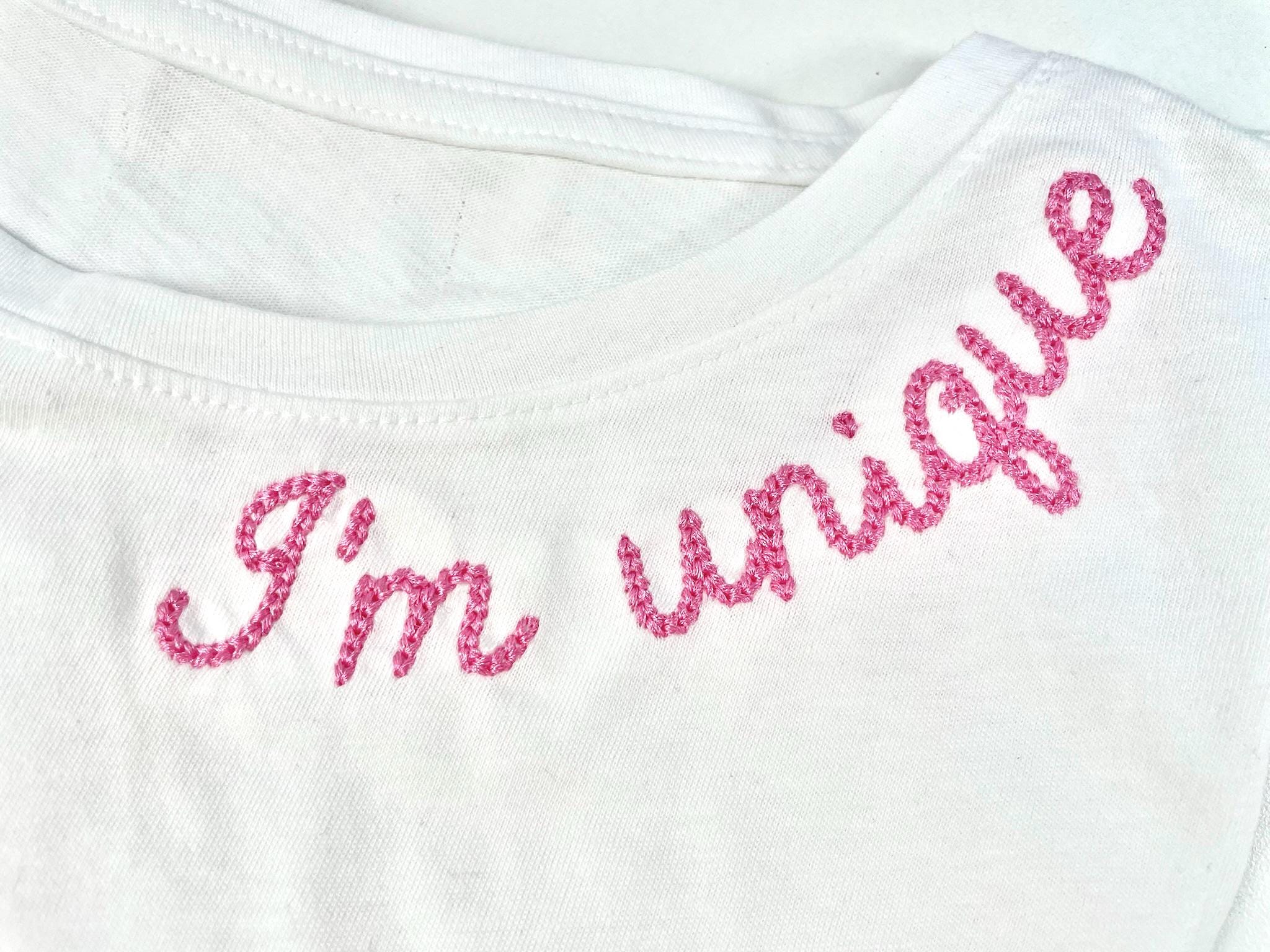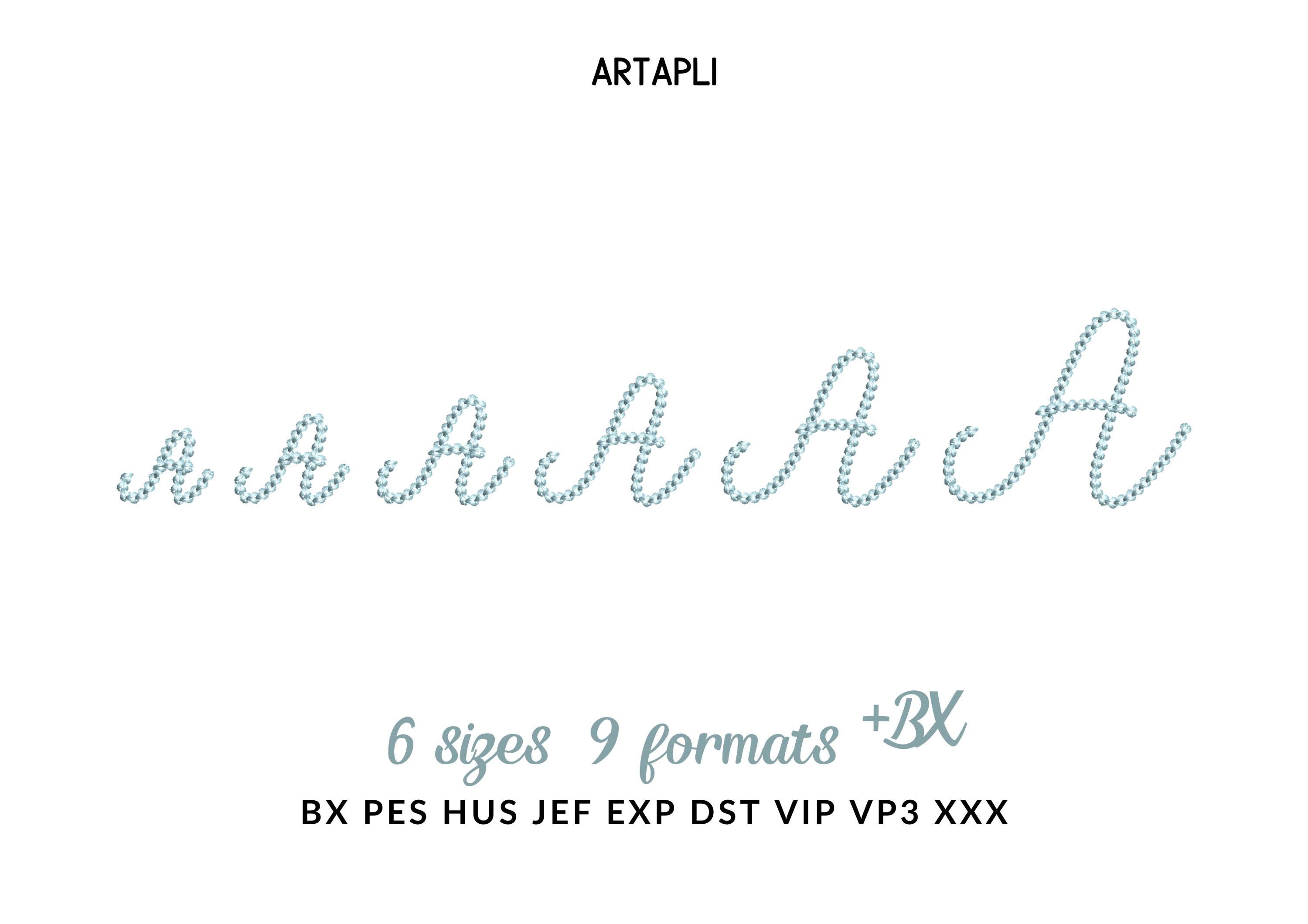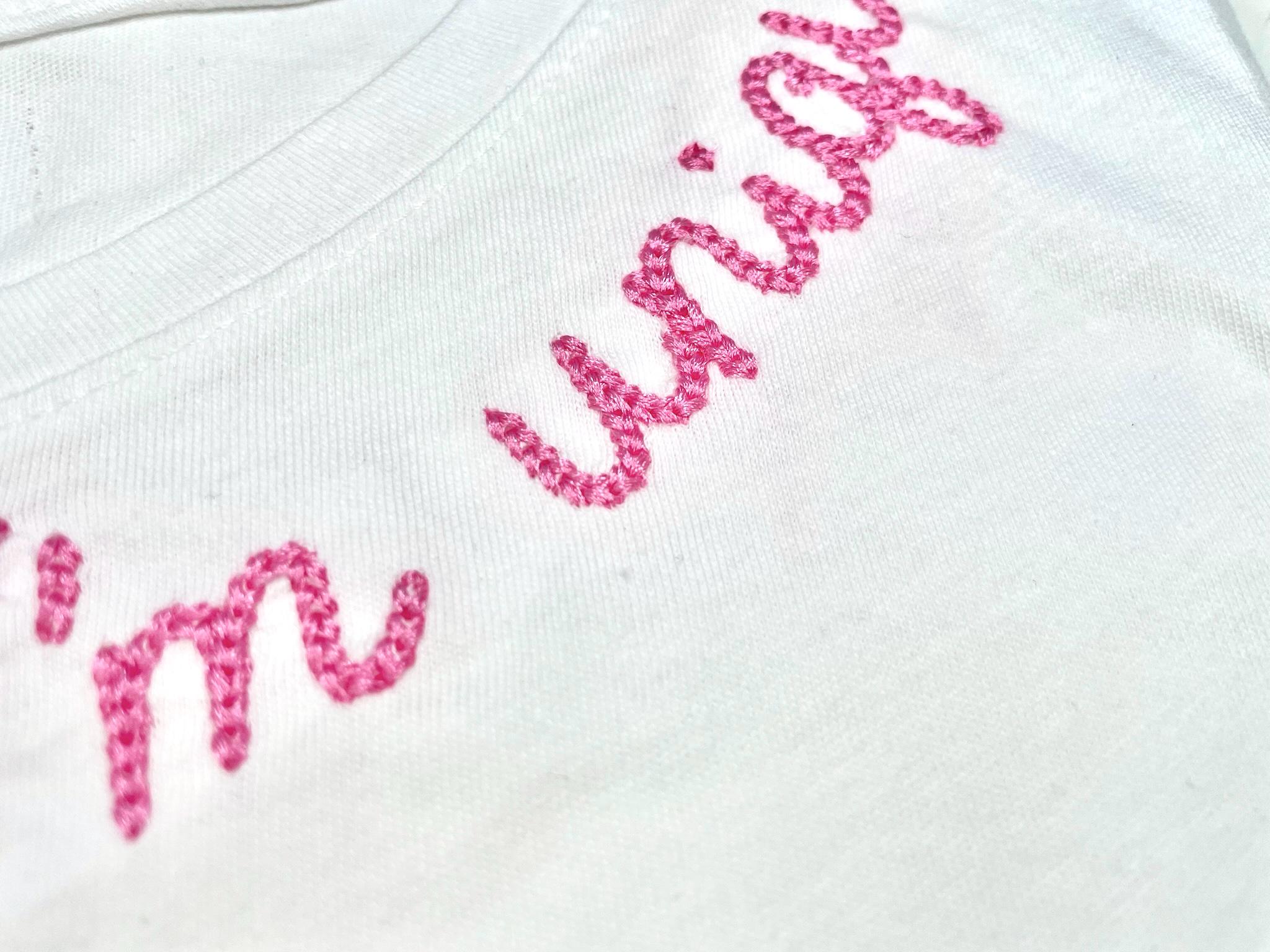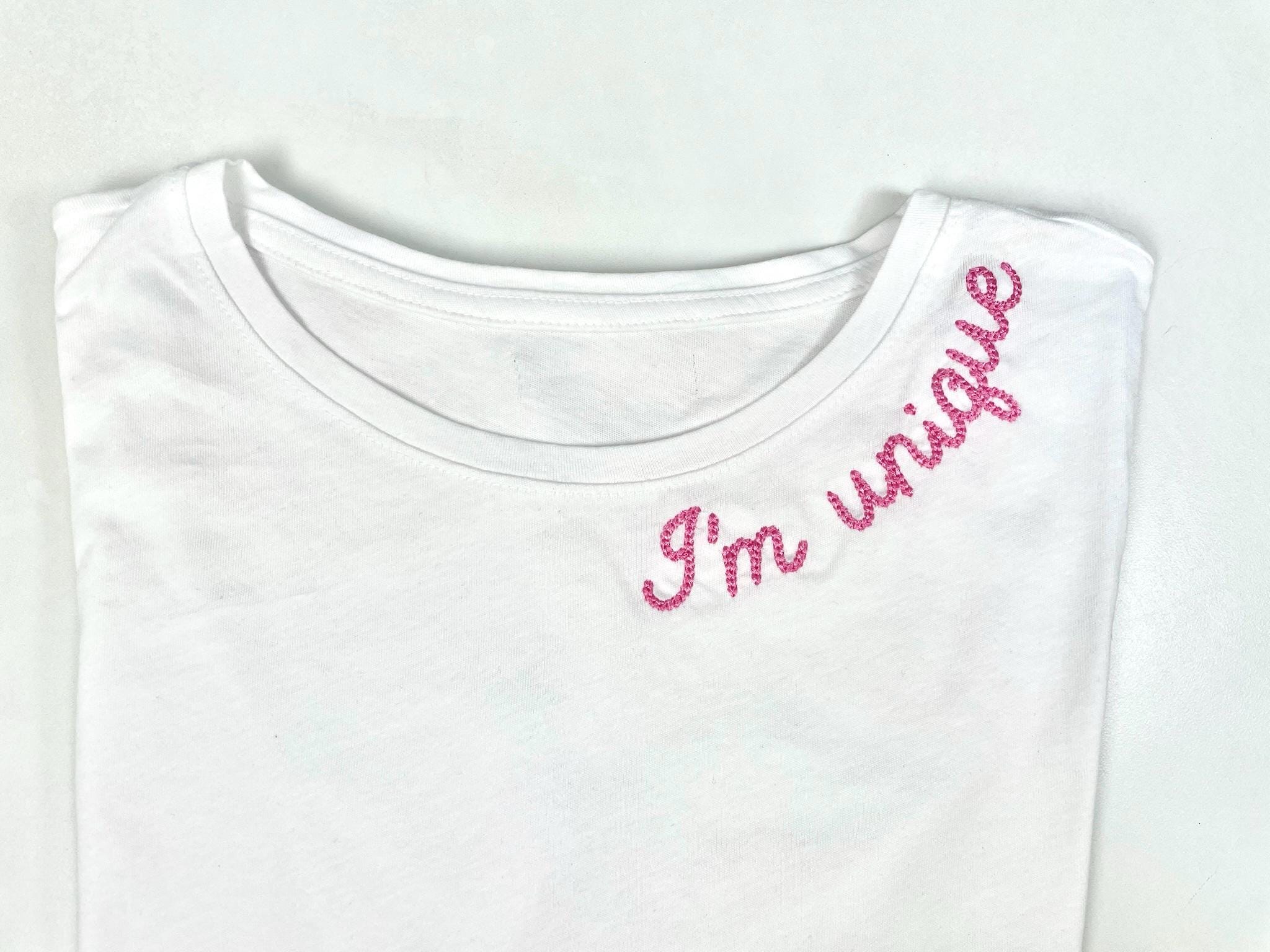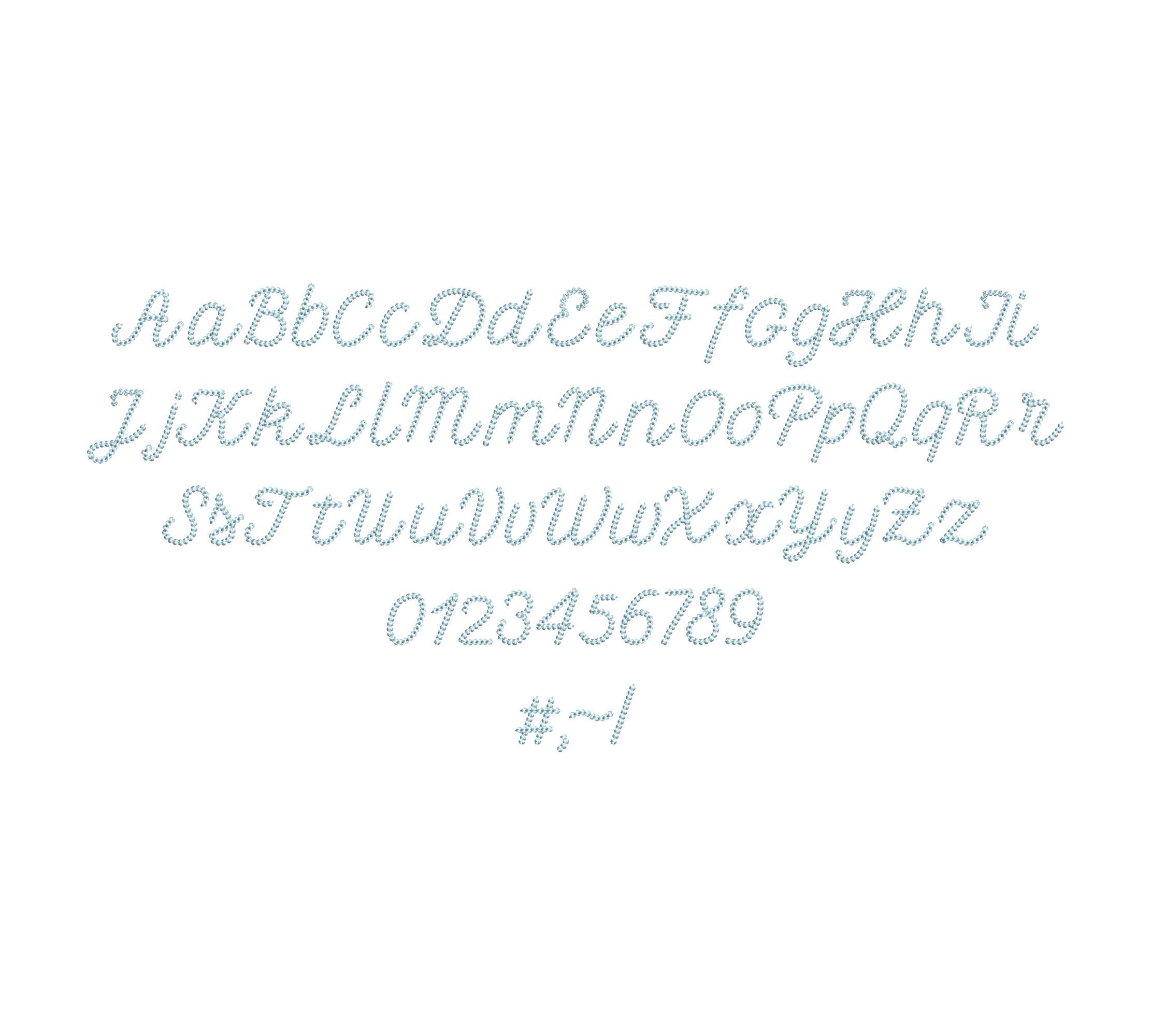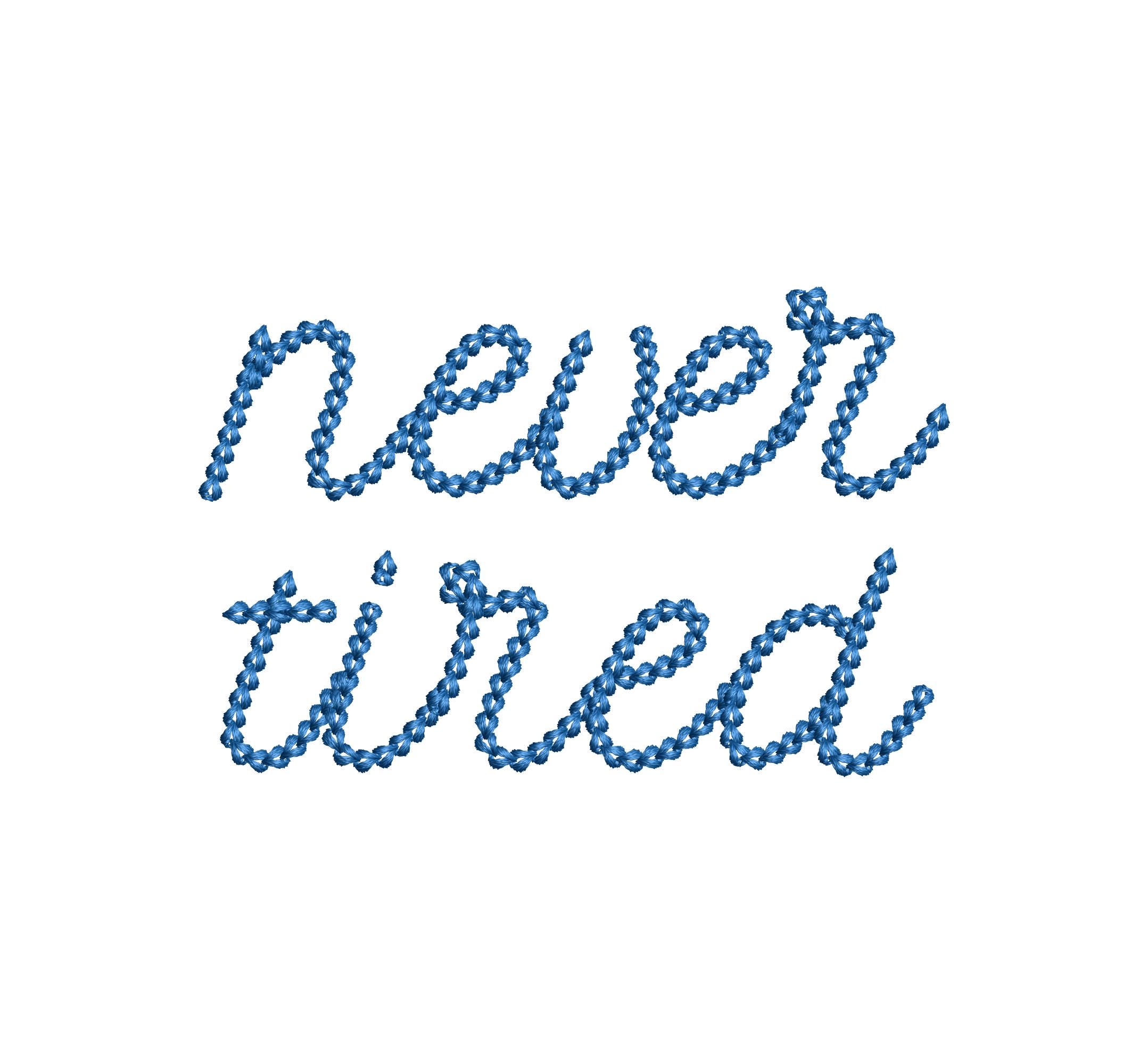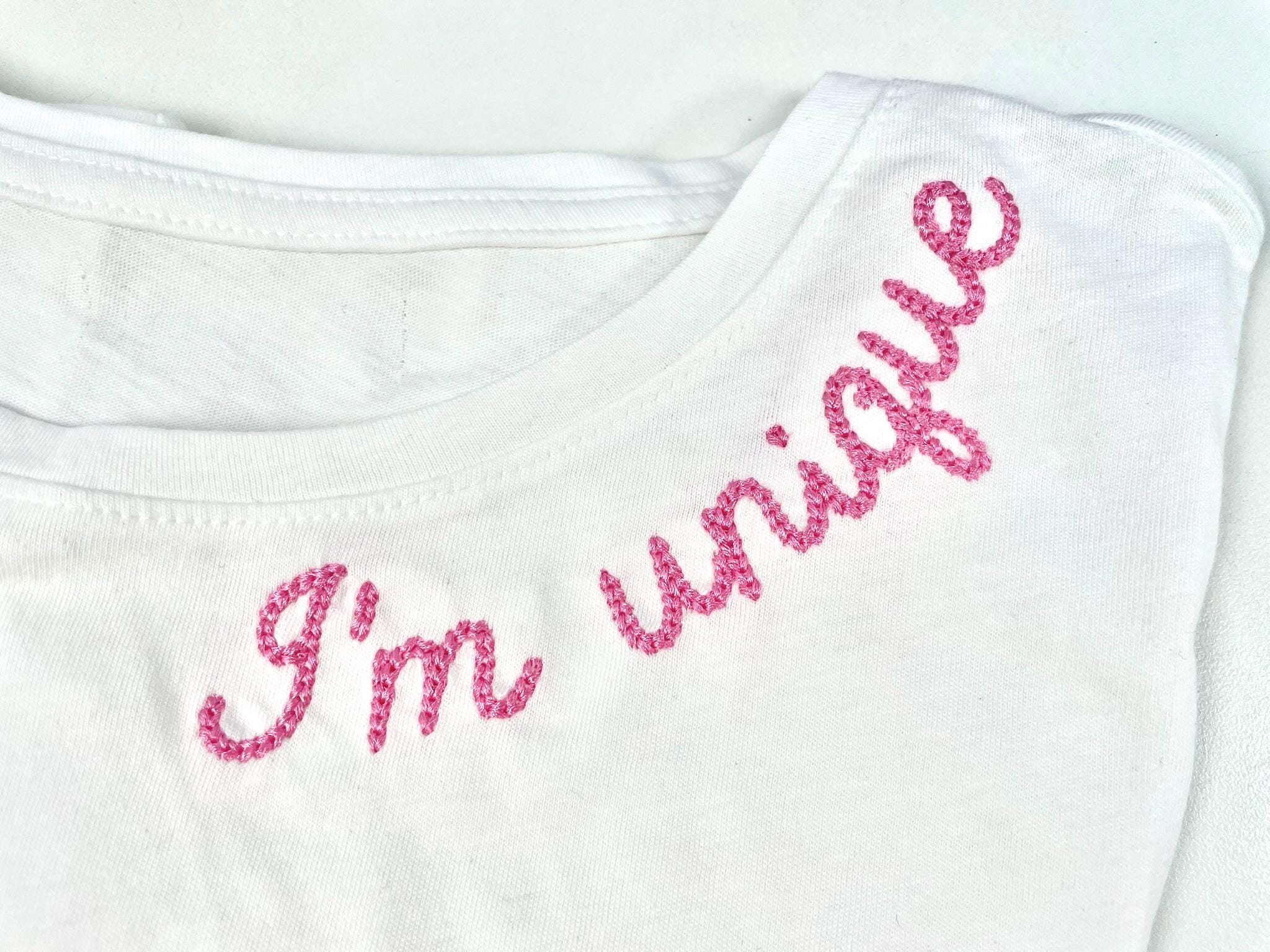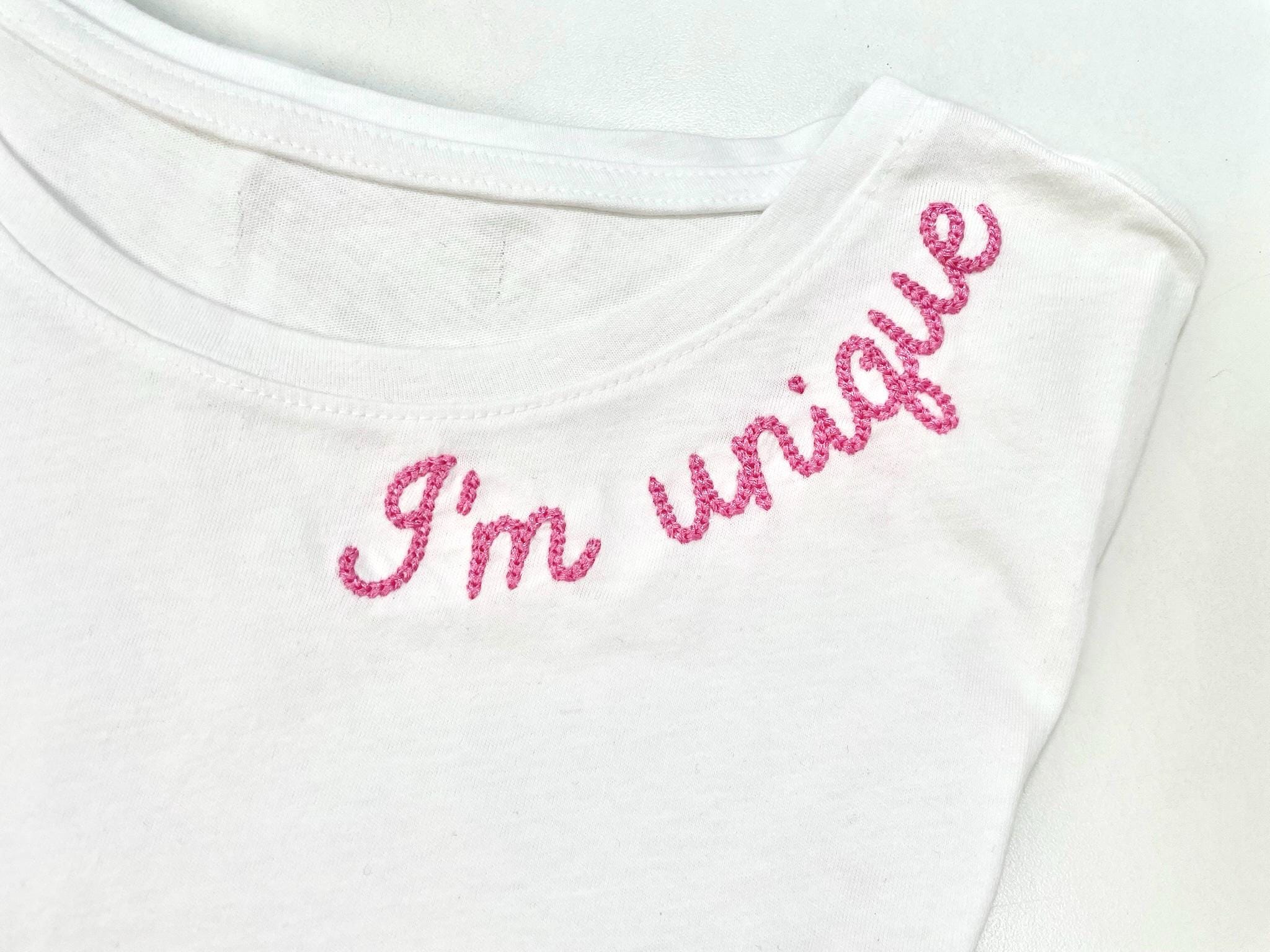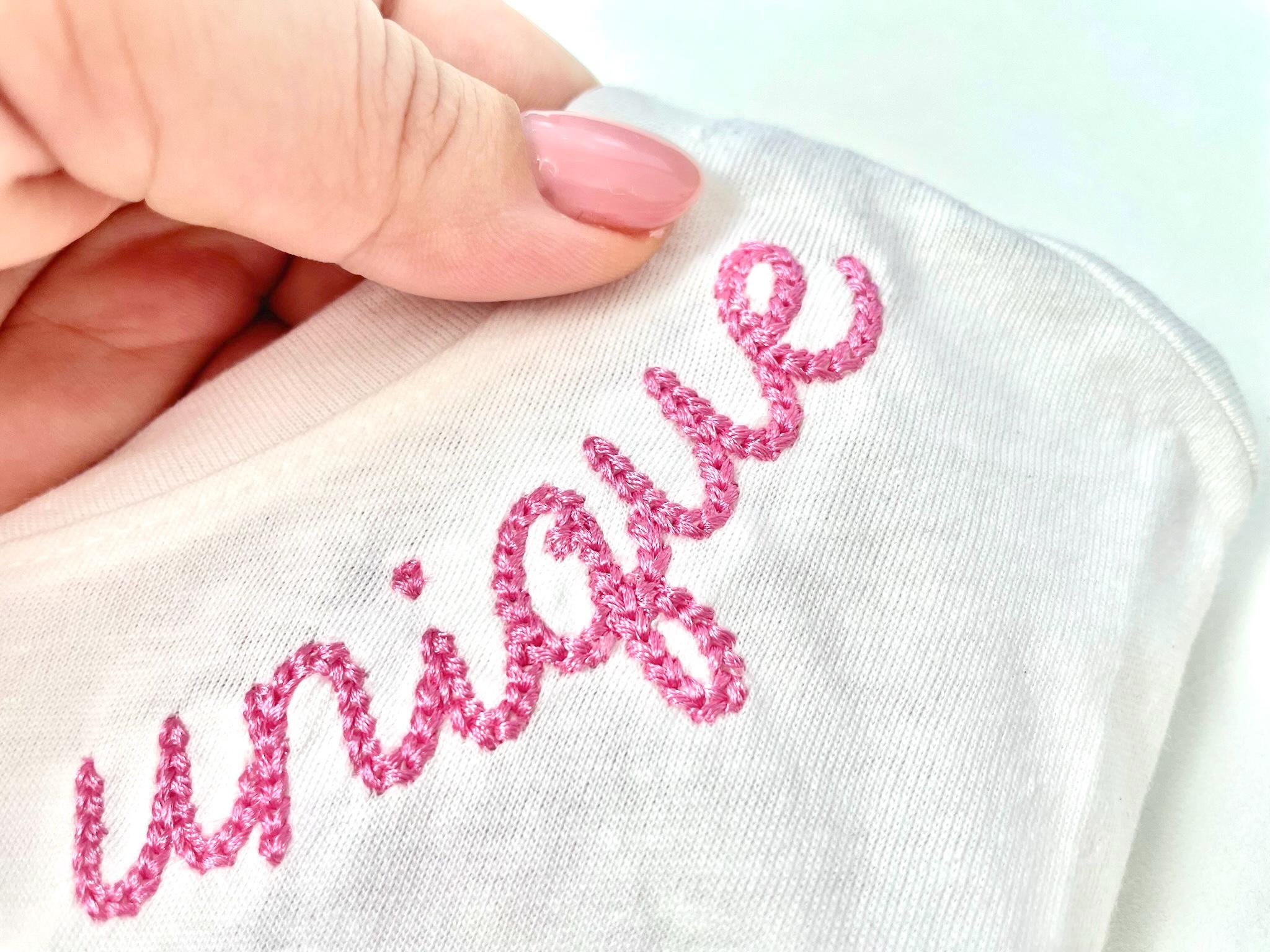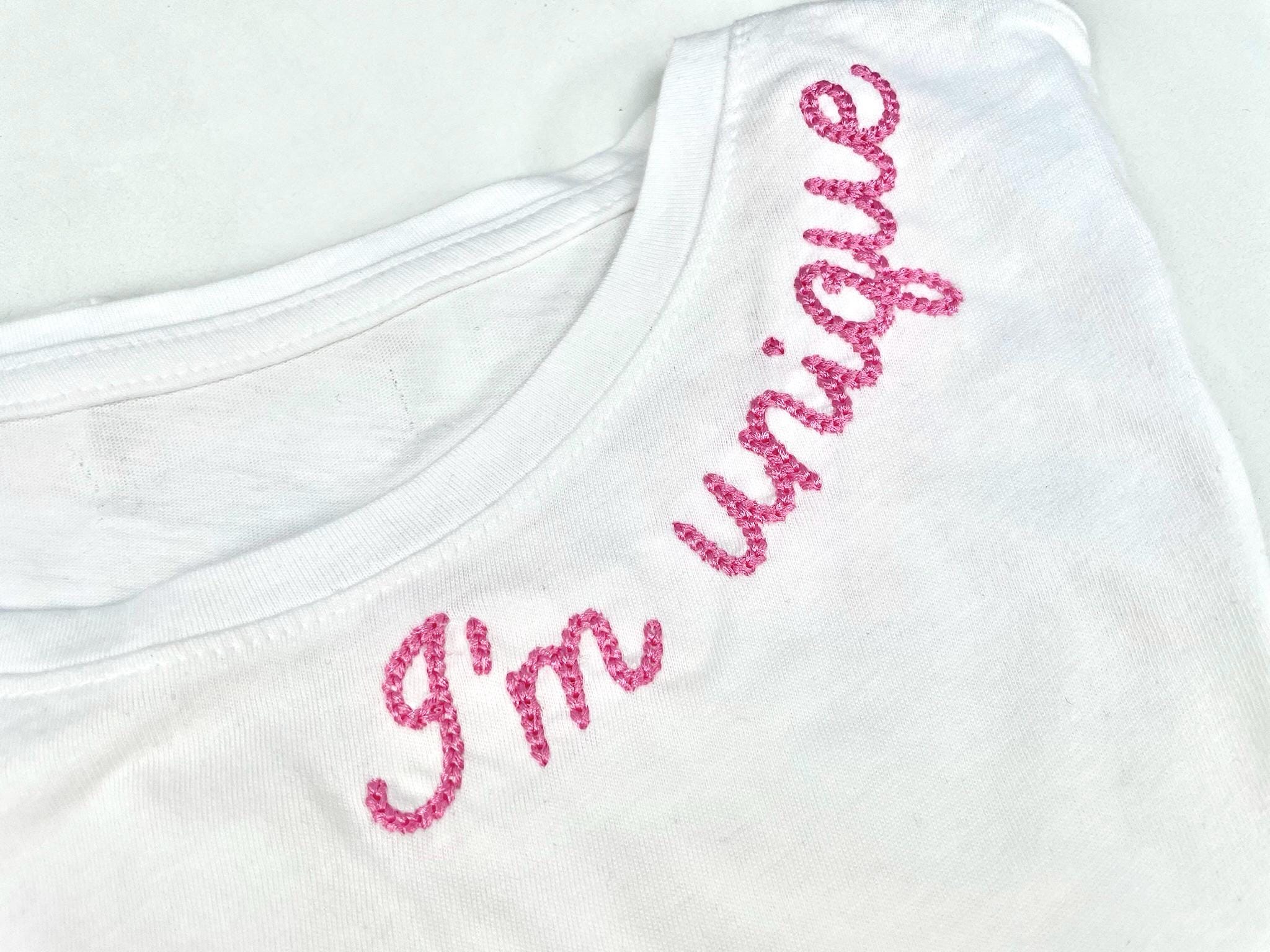
Extra Bold Mini Chain FONT Petit chain stitch handwritten script Alphabet Monogram machine embroidery designs mini sizes 0.7 up to 1.9 inch
Entire alphabet Aa-Zz uppercase and lowercase letters, numbers 0-9, and punctuation.